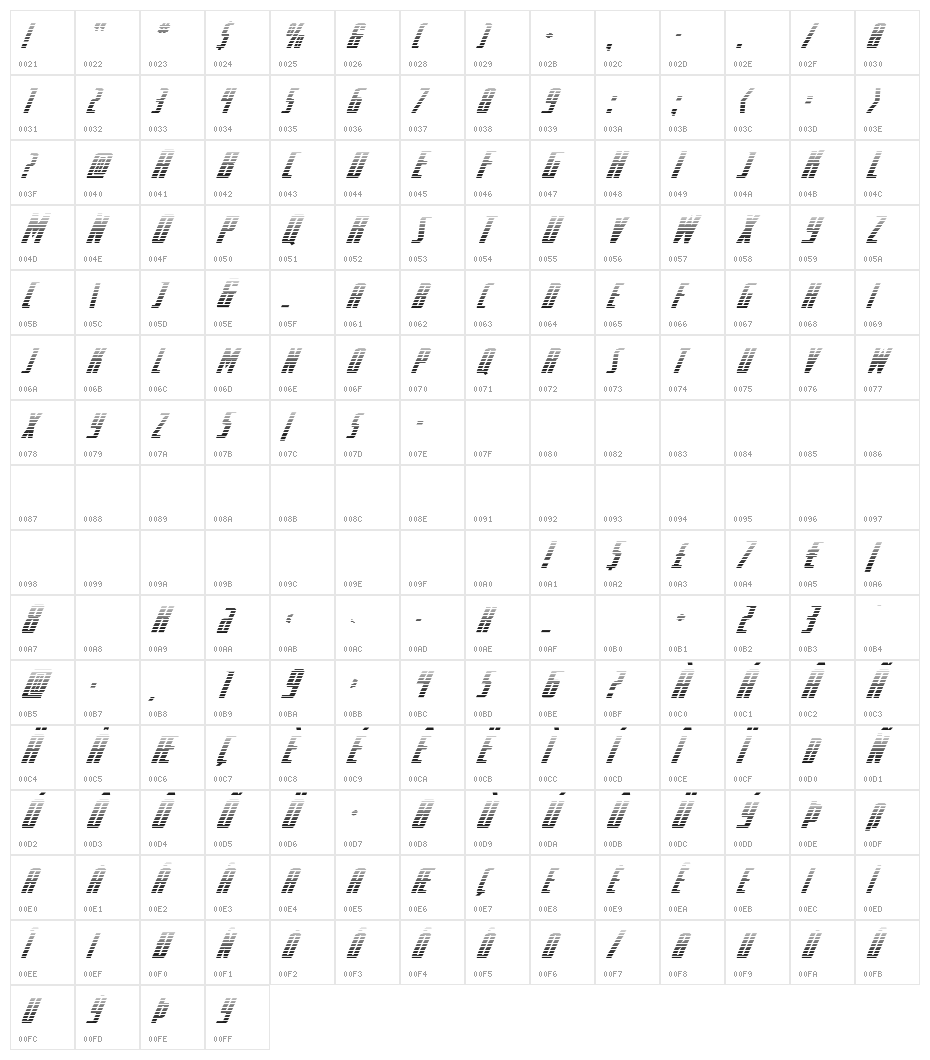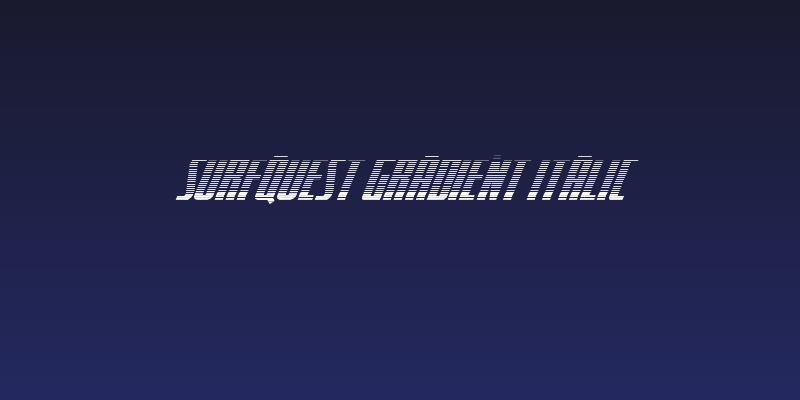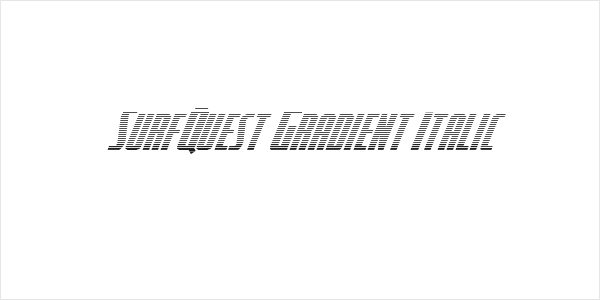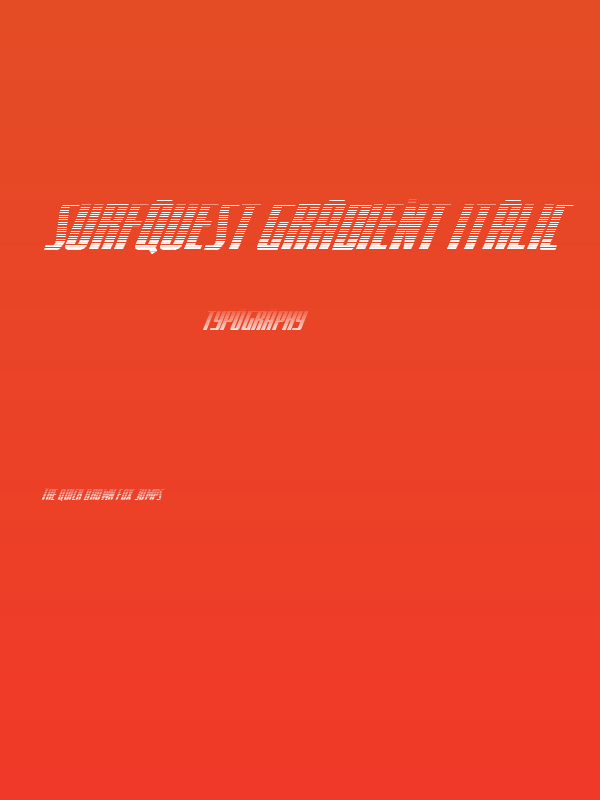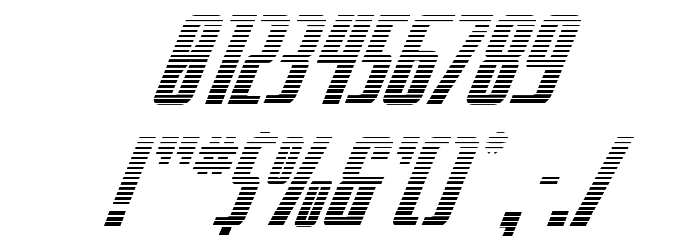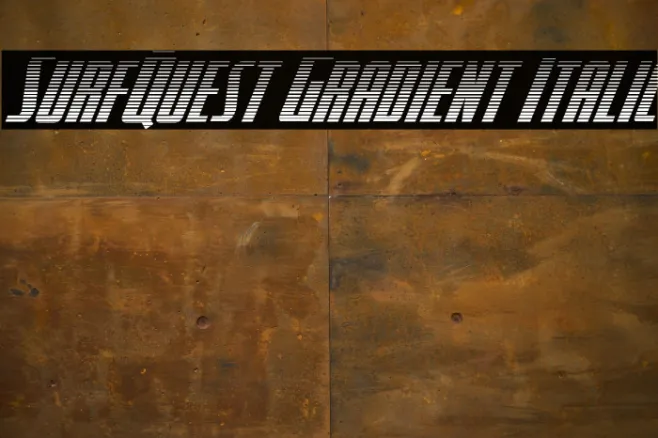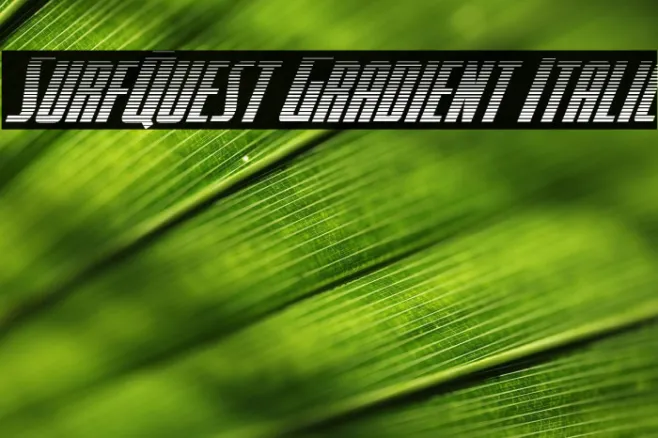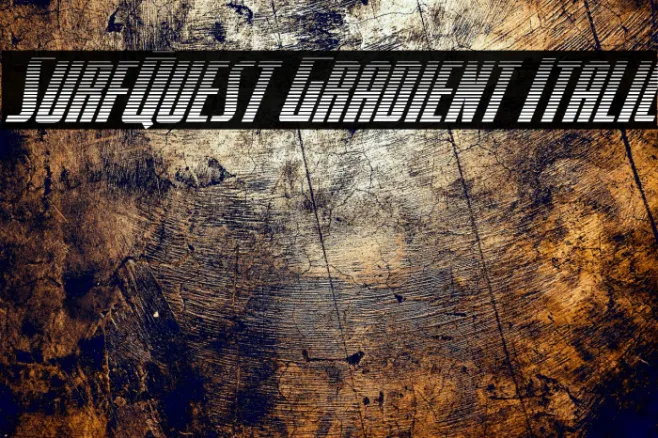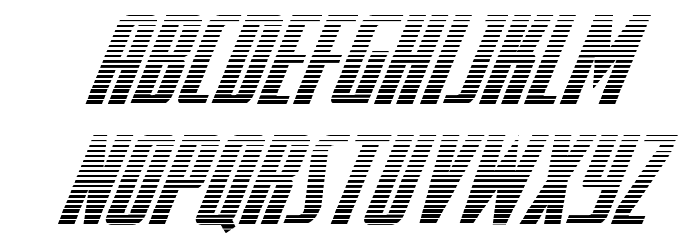
SurfQuest Gradient Italic Font
SurfQuest Gradient Italic Description
This font features a dynamic and modern design with a distinct italic slant, giving it a sense of motion and energy. The characters are composed of horizontal lines that create a gradient effect, enhancing the visual impact and adding a futuristic touch. The uppercase and lowercase letters maintain a consistent style, while the numbers and special characters integrate seamlessly into the overall design. This font's unique structure makes it ideal for projects that require a bold and eye-catching aesthetic.
| Proposed Projects | Ideal for sports branding, dynamic posters, futuristic designs, and tech-related projects. |